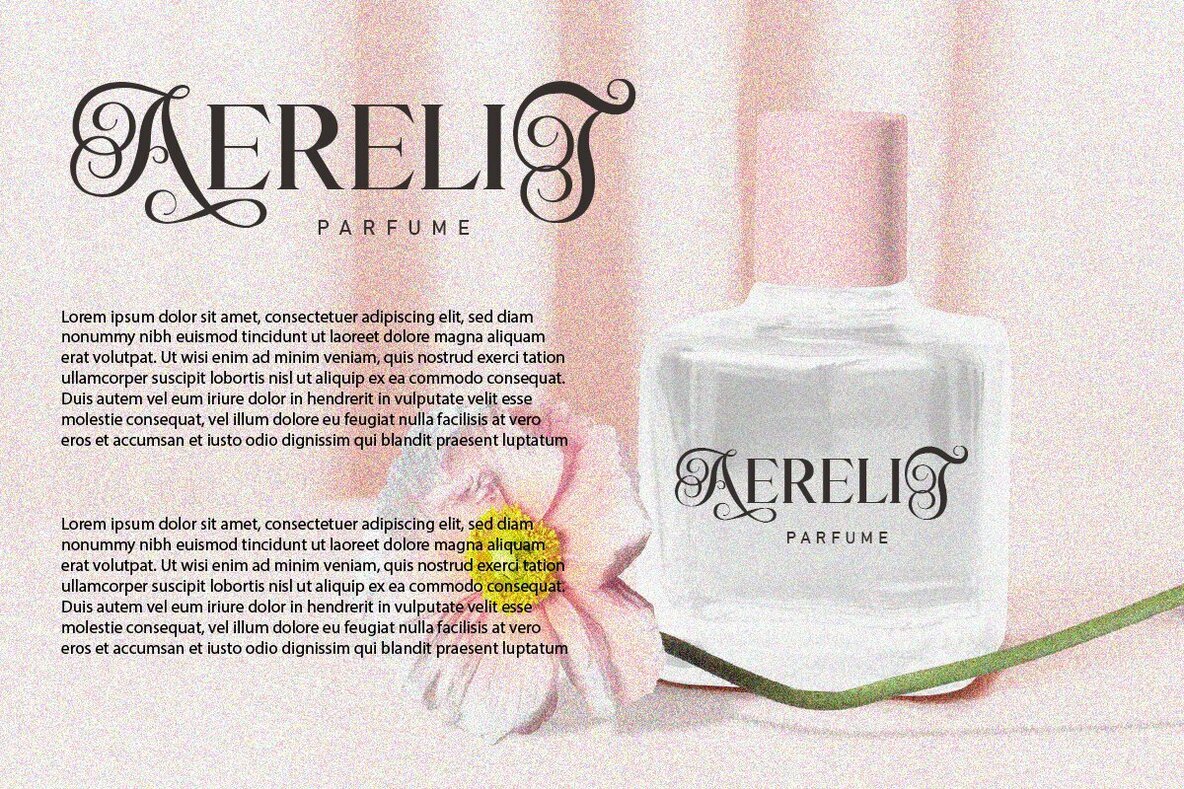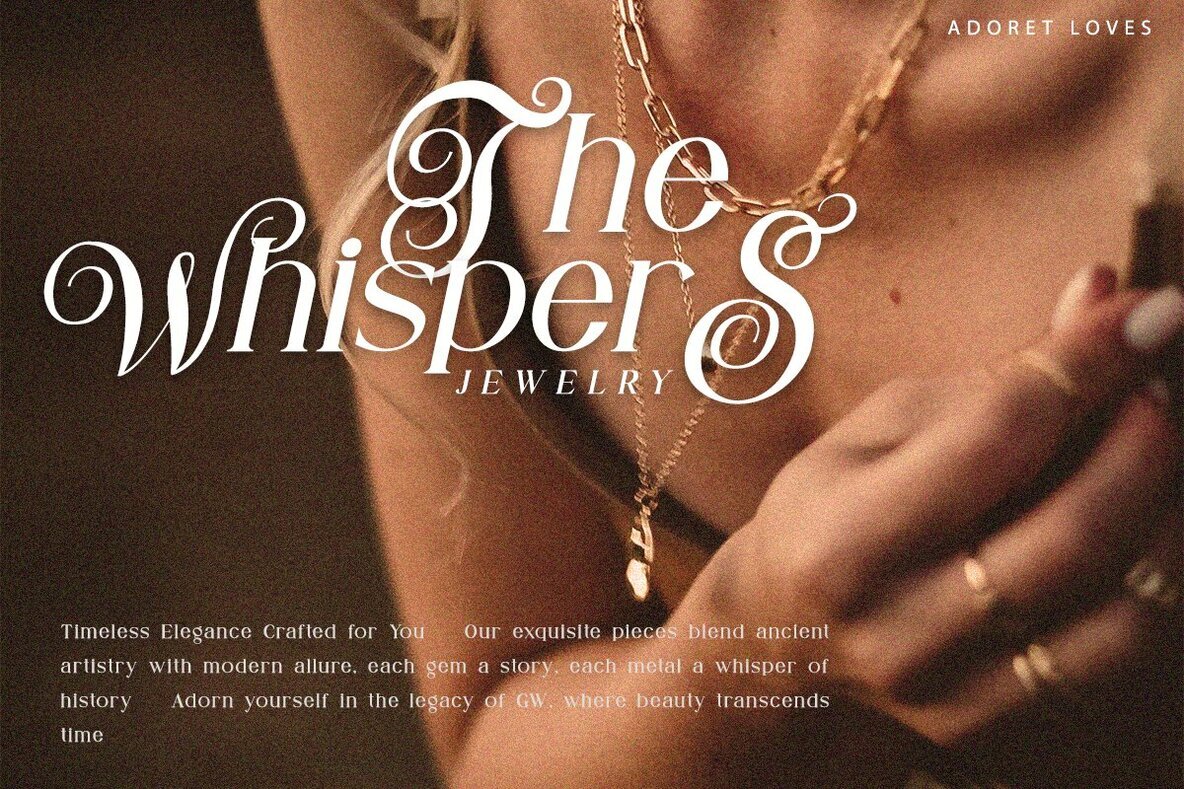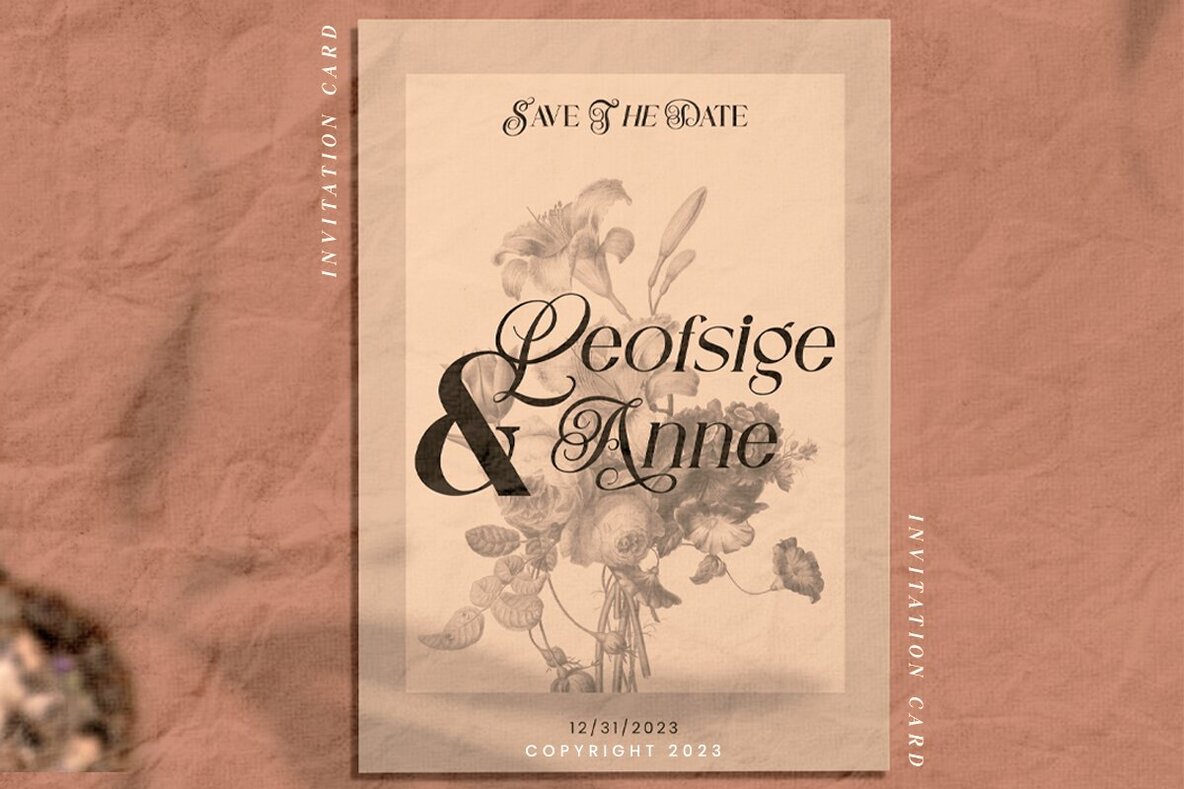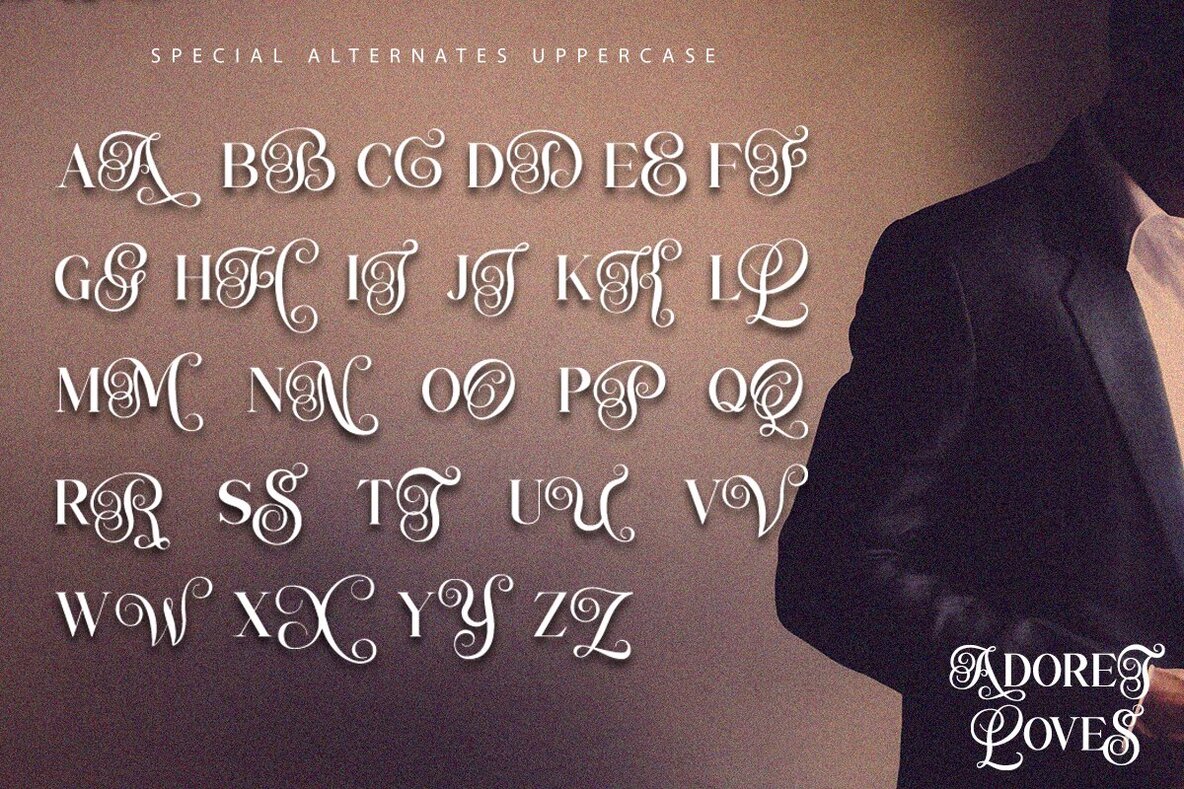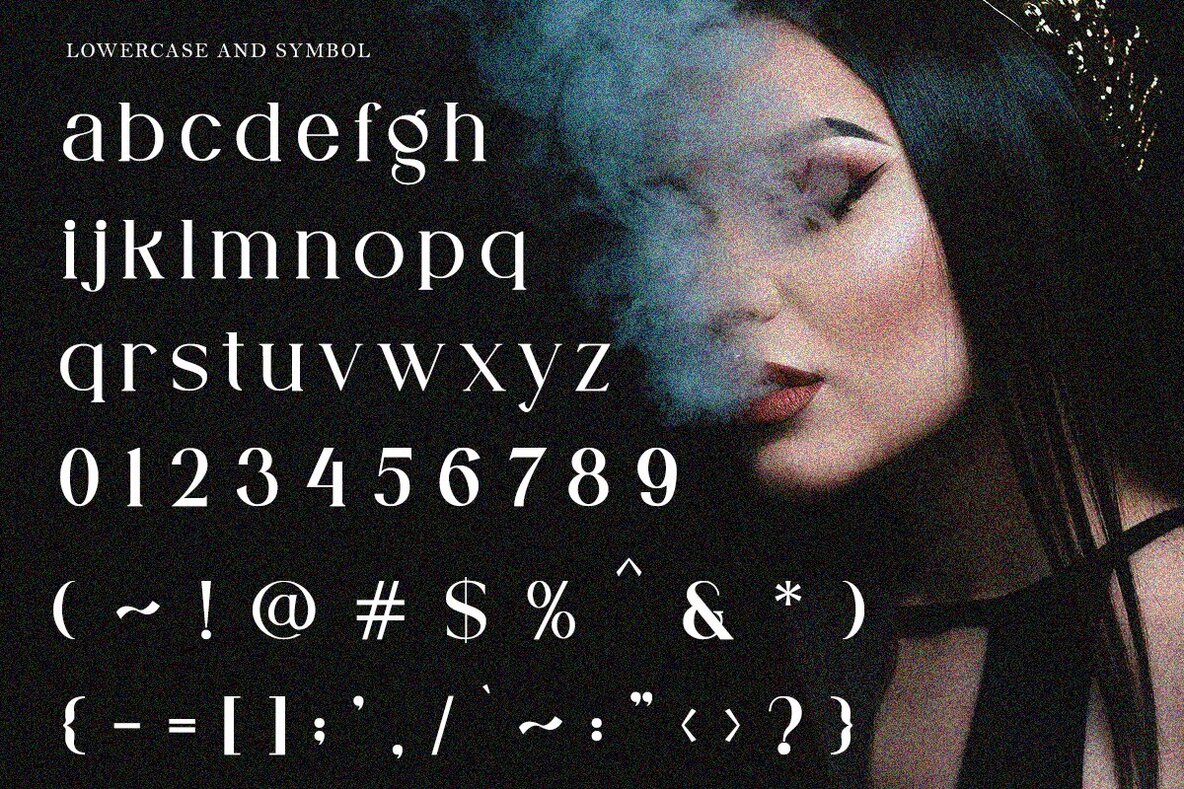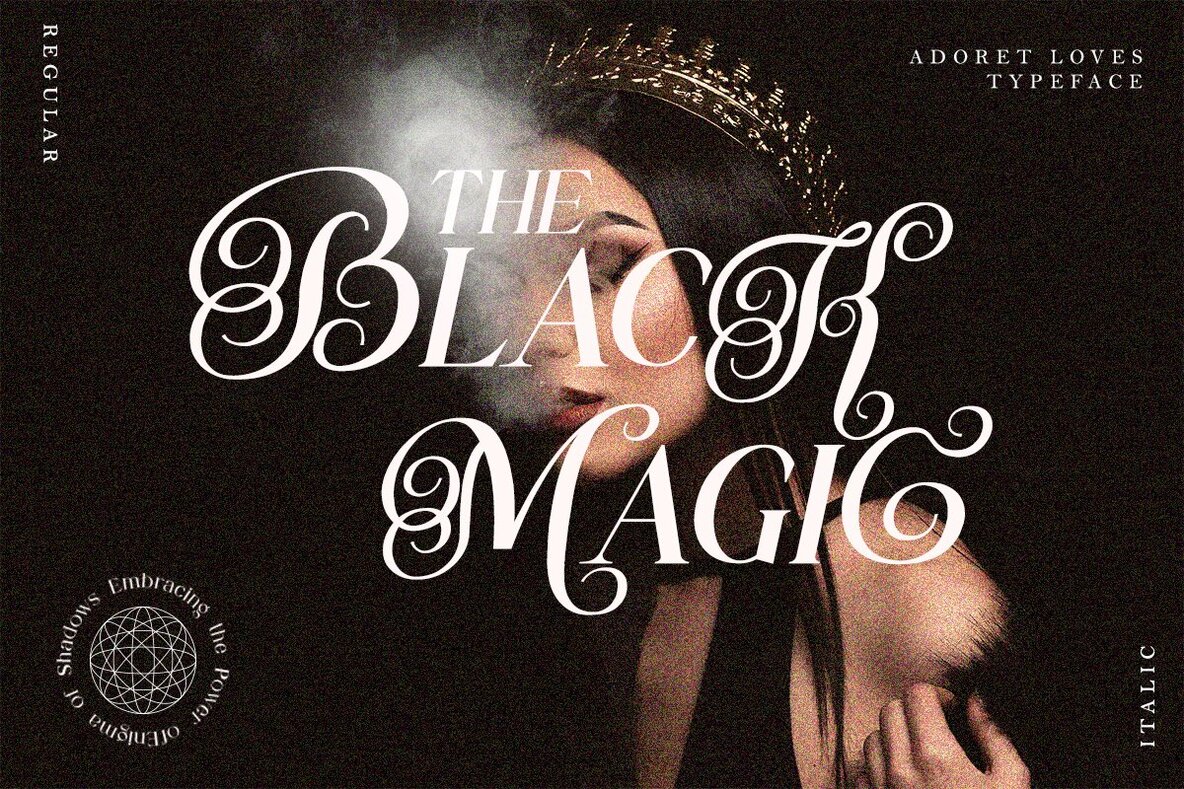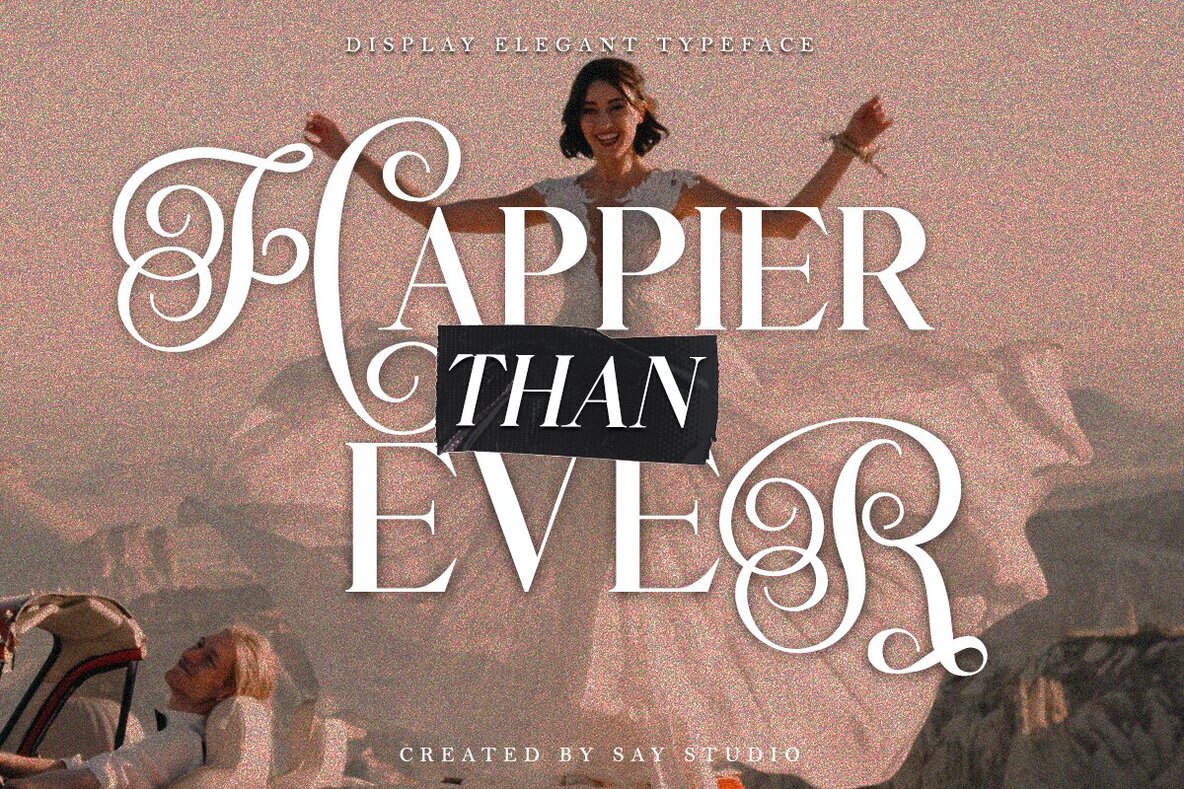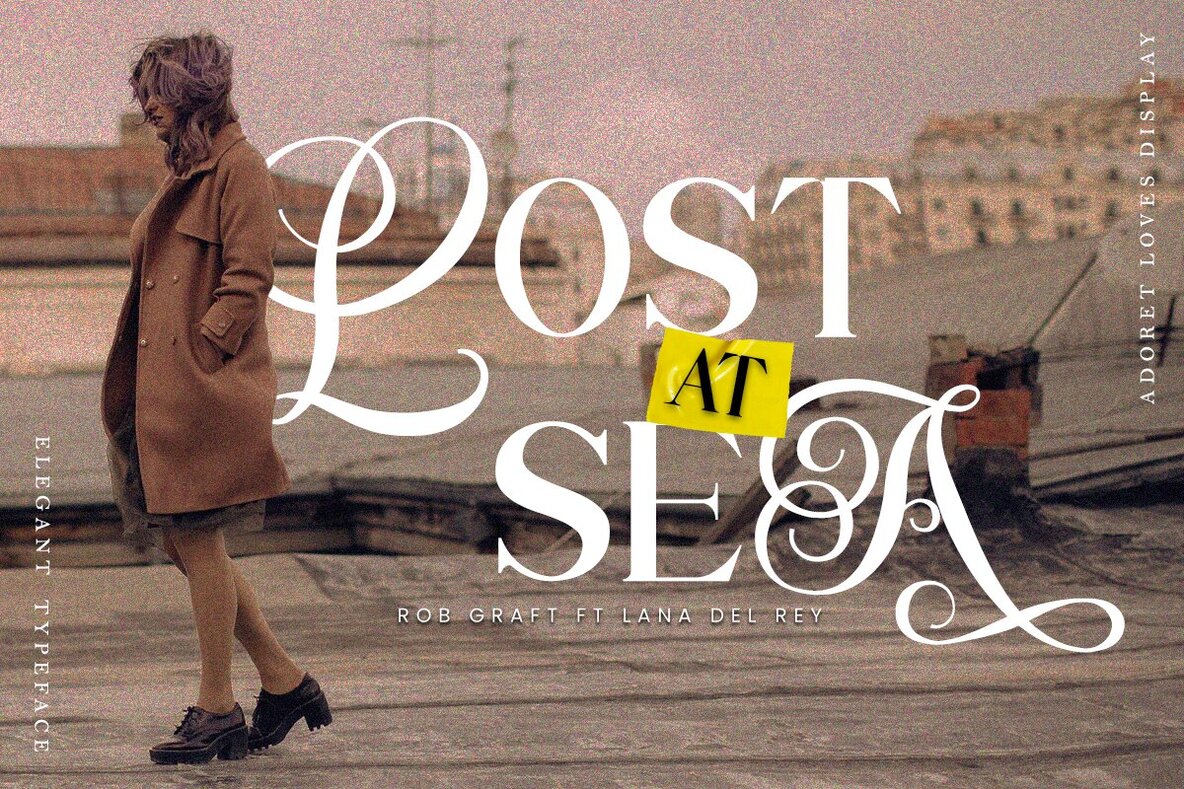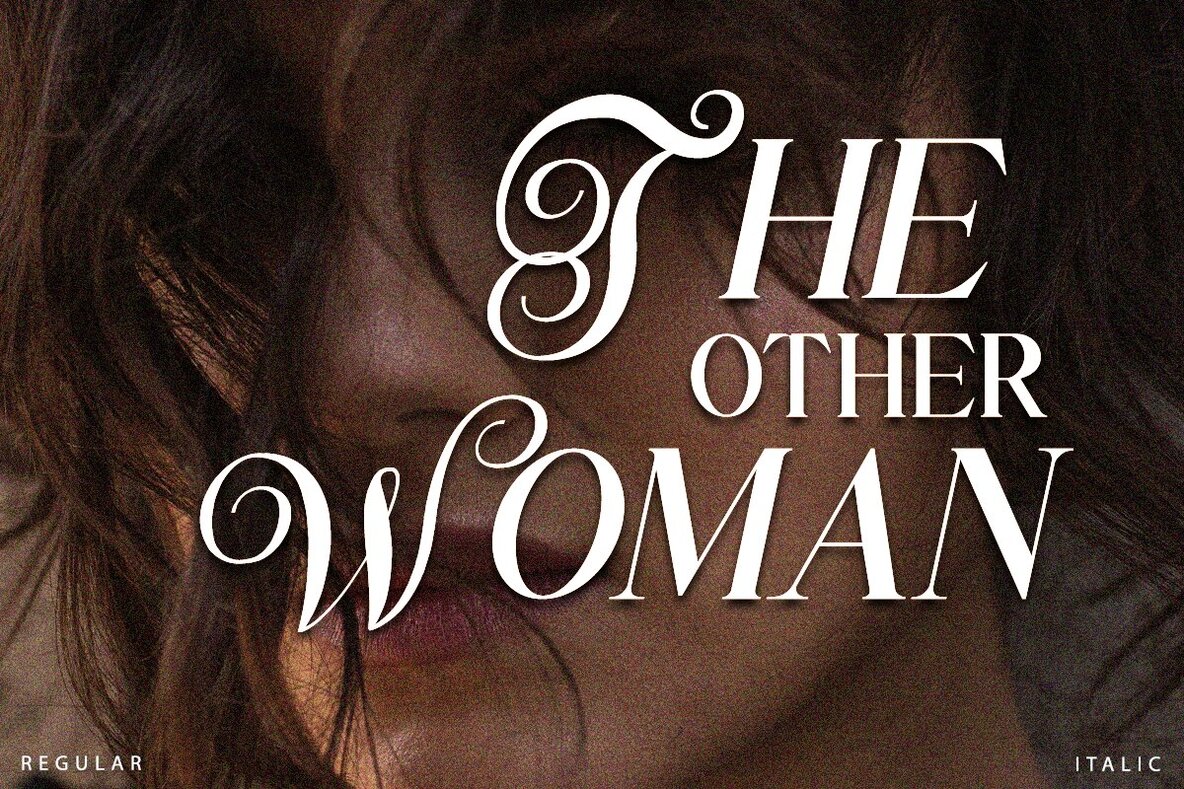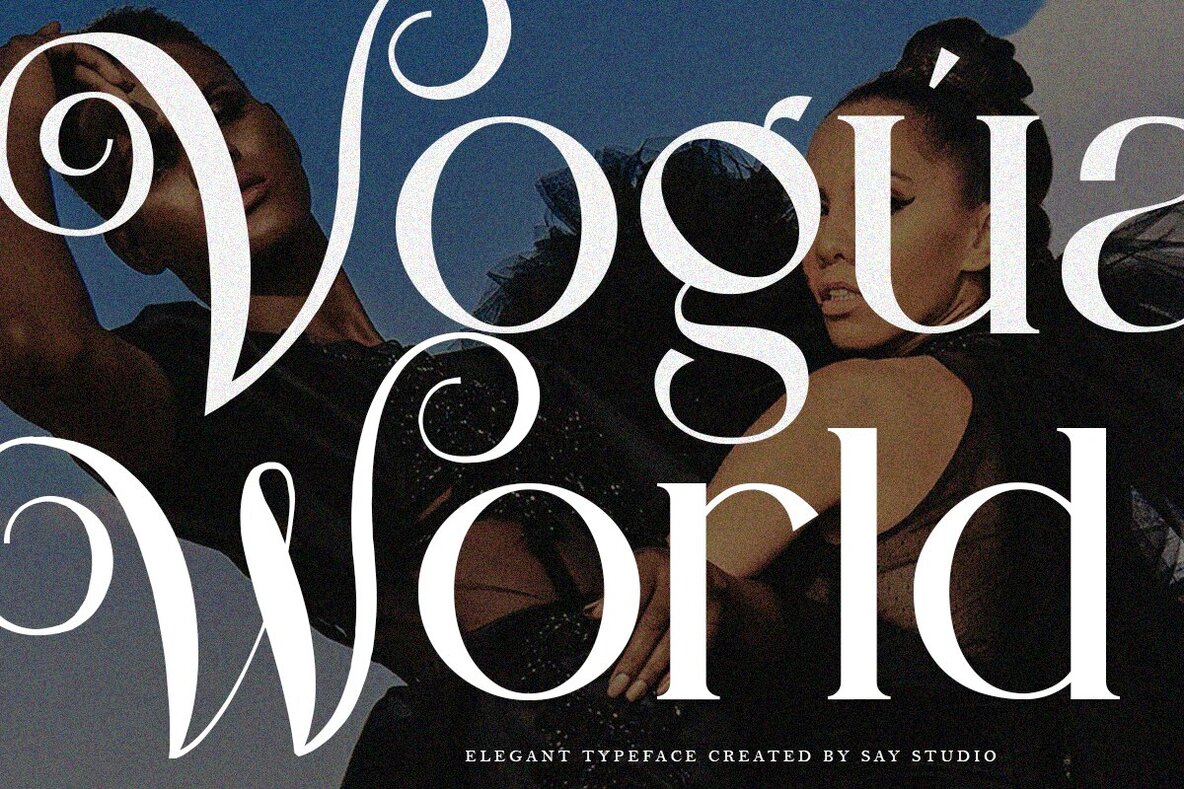
Adoret Loves Font
Adoret Loves by Nur Rohman combines the charm of modern serif with the grace of elegant script. This fabulous hybrid font offers two versions: regular and italic. Designed for headlines, titles, and short texts, Adoret Loves is ideal for advertising, vintage mood boards, branding, logotypes, packaging, titles, editorial design, modern logos, websites, social media quotes, wedding branding, and both modern and vintage designs.Adoret Loves: A Hybrid of Elegance and Modernity